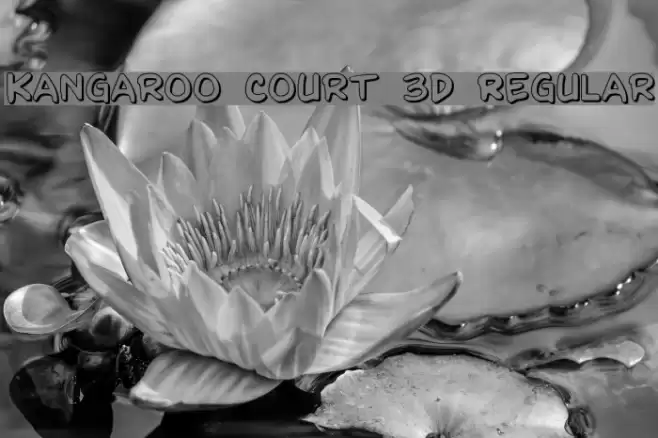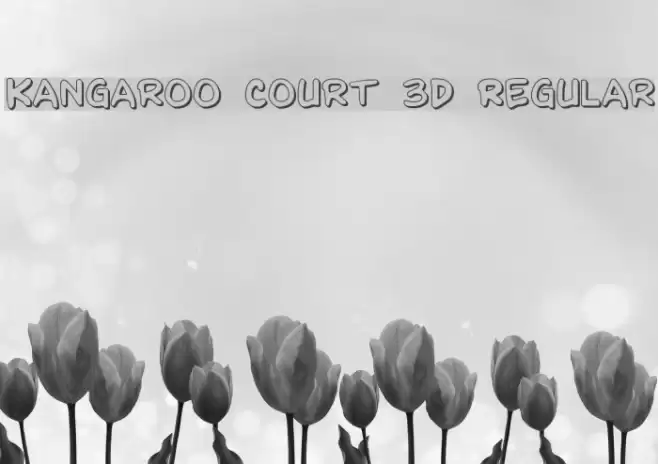
Kangaroo Court 3D Regular Font
Kangaroo Court 3D Regular Description
This playful and bold font features a three-dimensional effect with a bubble-like appearance. The characters are outlined, giving them a cartoonish and fun vibe. The uppercase and lowercase letters maintain a consistent style, with rounded edges and a slightly irregular shape that adds to the whimsical feel. Numbers and special characters are designed to match the overall playful aesthetic, making this font suitable for creative and informal projects.
A playful, 3D bubble-like font with outlined characters and a whimsical style from Uncategorized fonts.
- Proposed Projects: Ideal for children's books, comic strips, playful branding, party invitations, and any project that requires a fun and informal touch.
- Overall Style: Playful, Cartoonish